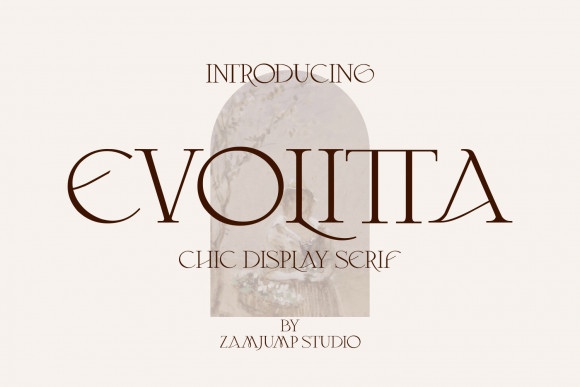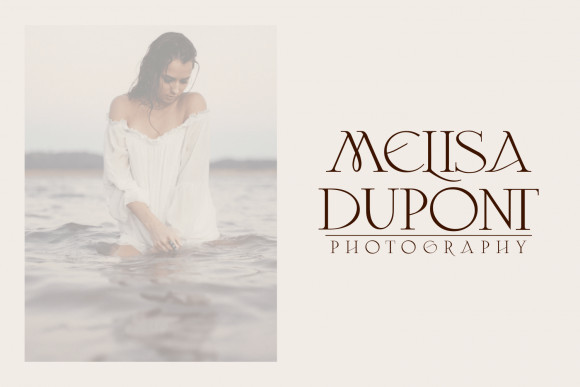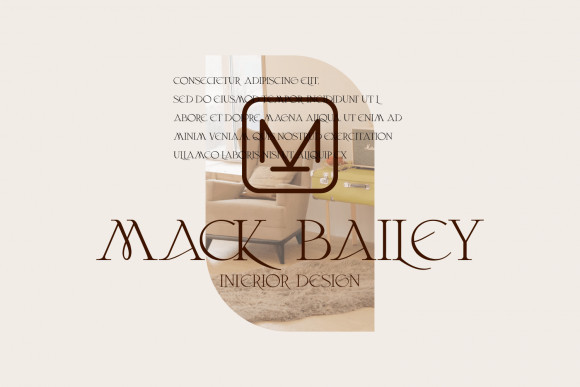
Evolitta Font
Evolitta is a thin, trendy and distinct serif font. Whatever the topic, this font will be a wonderful asset to your font library, as it has the potential to enhance any creation.